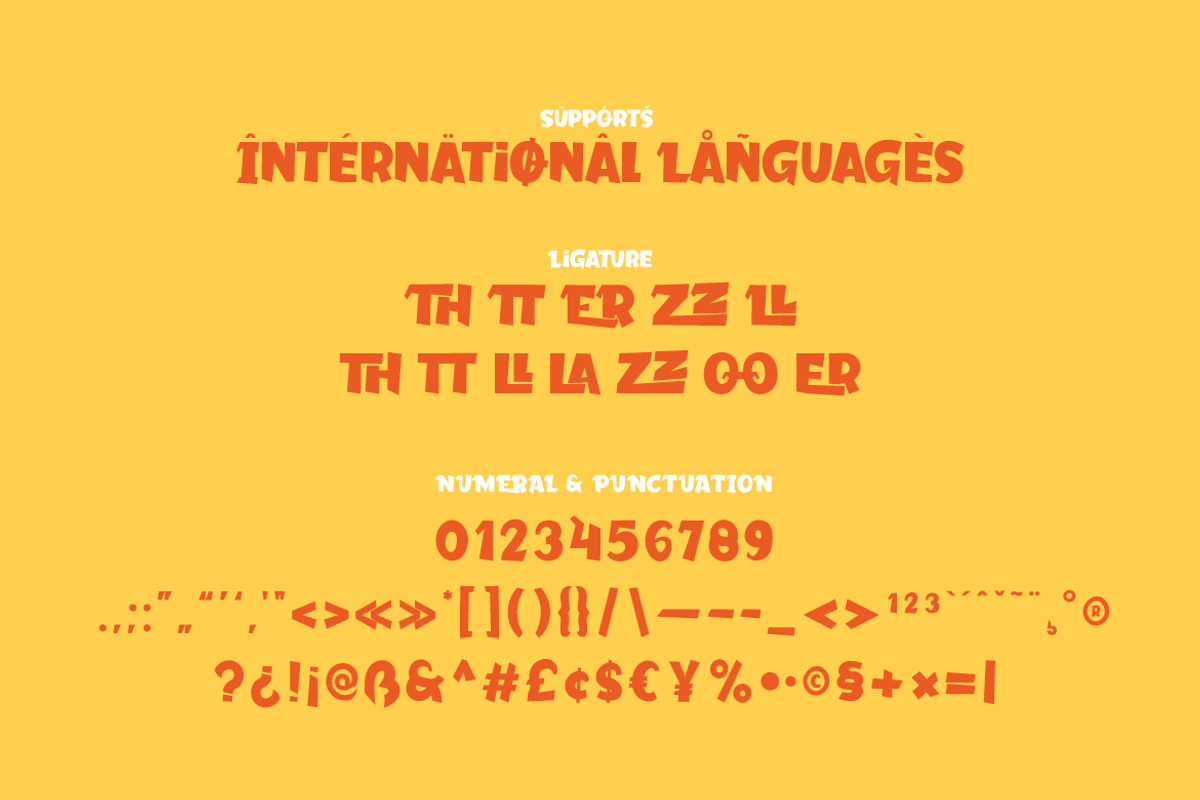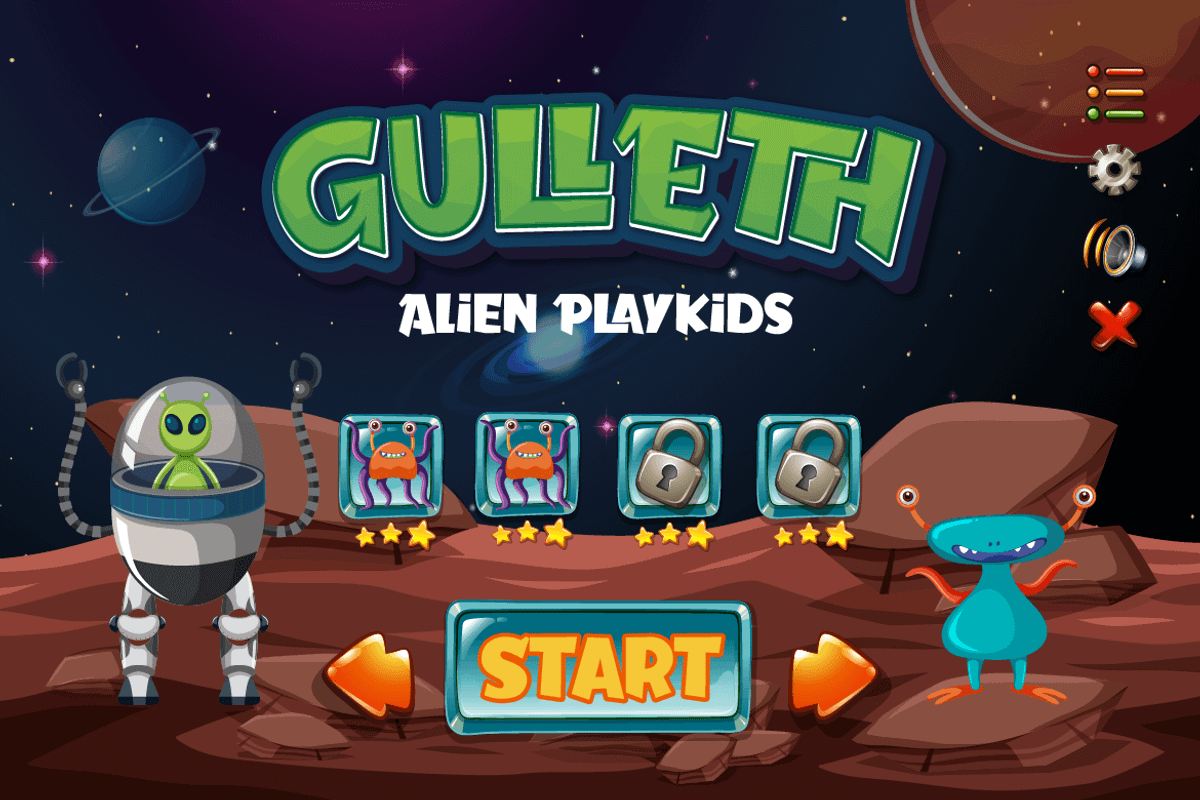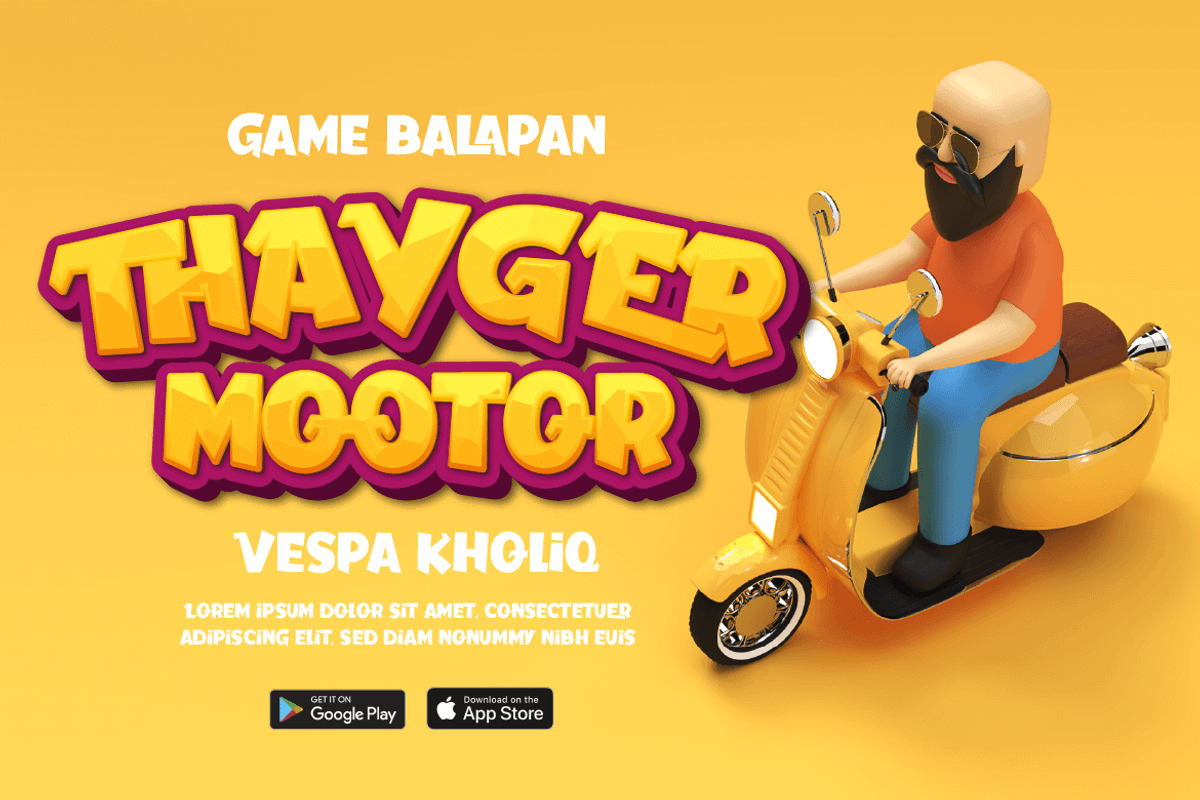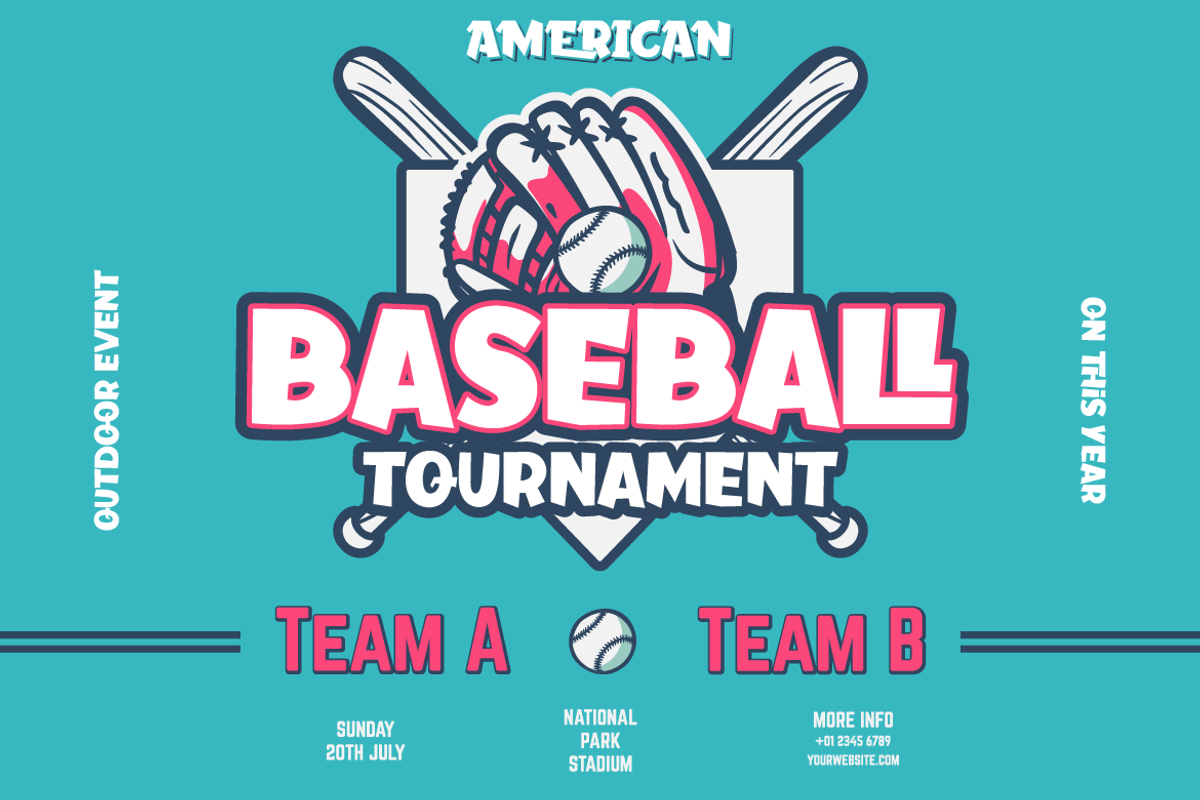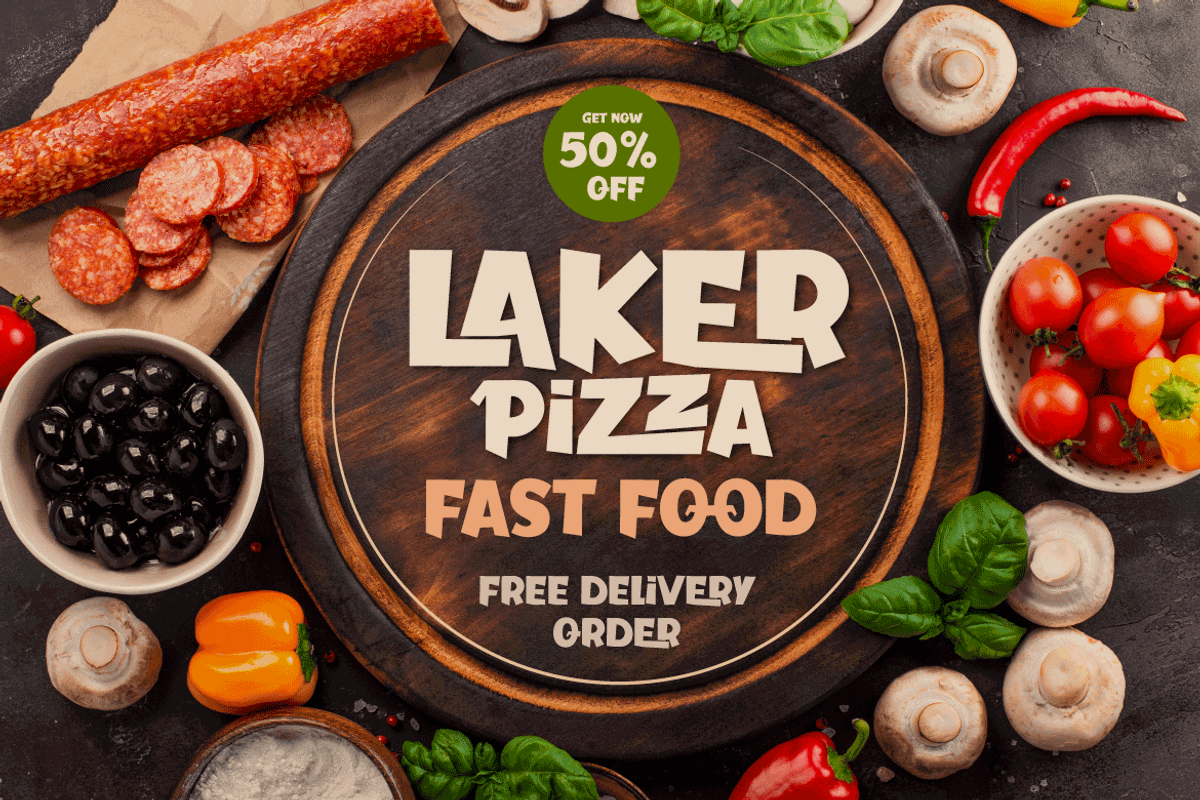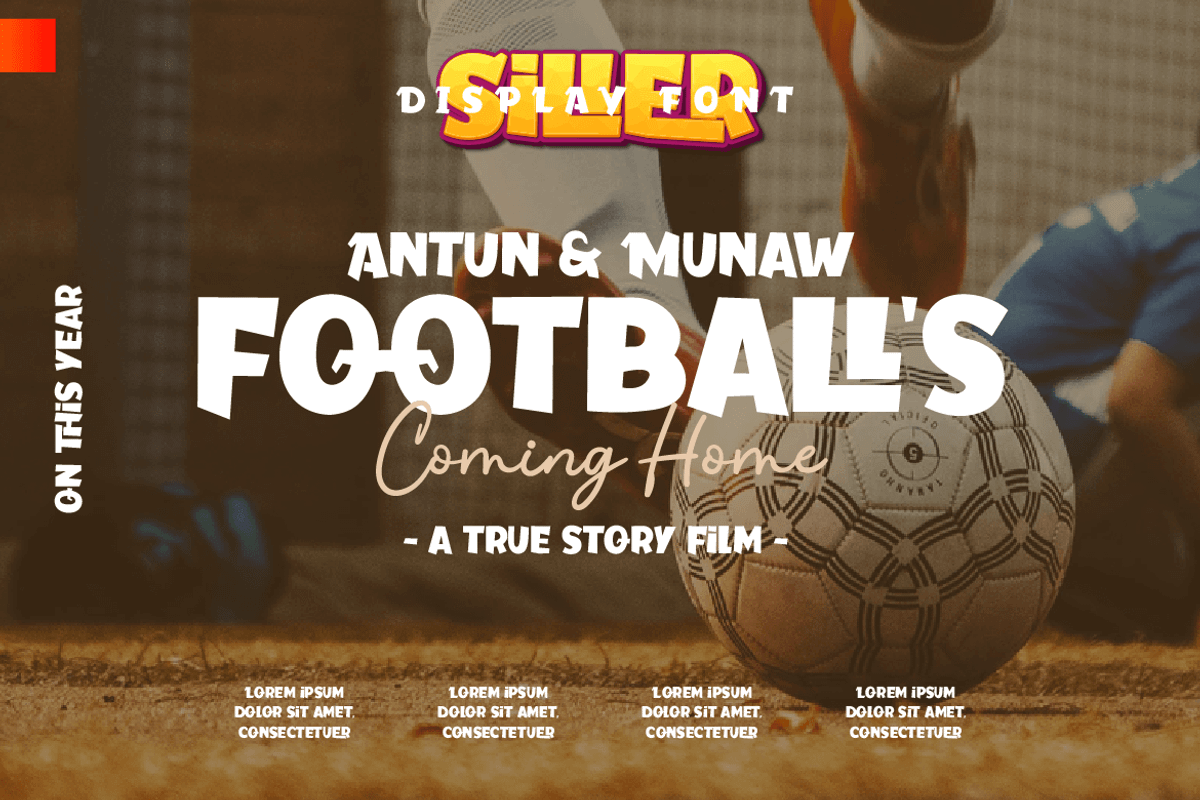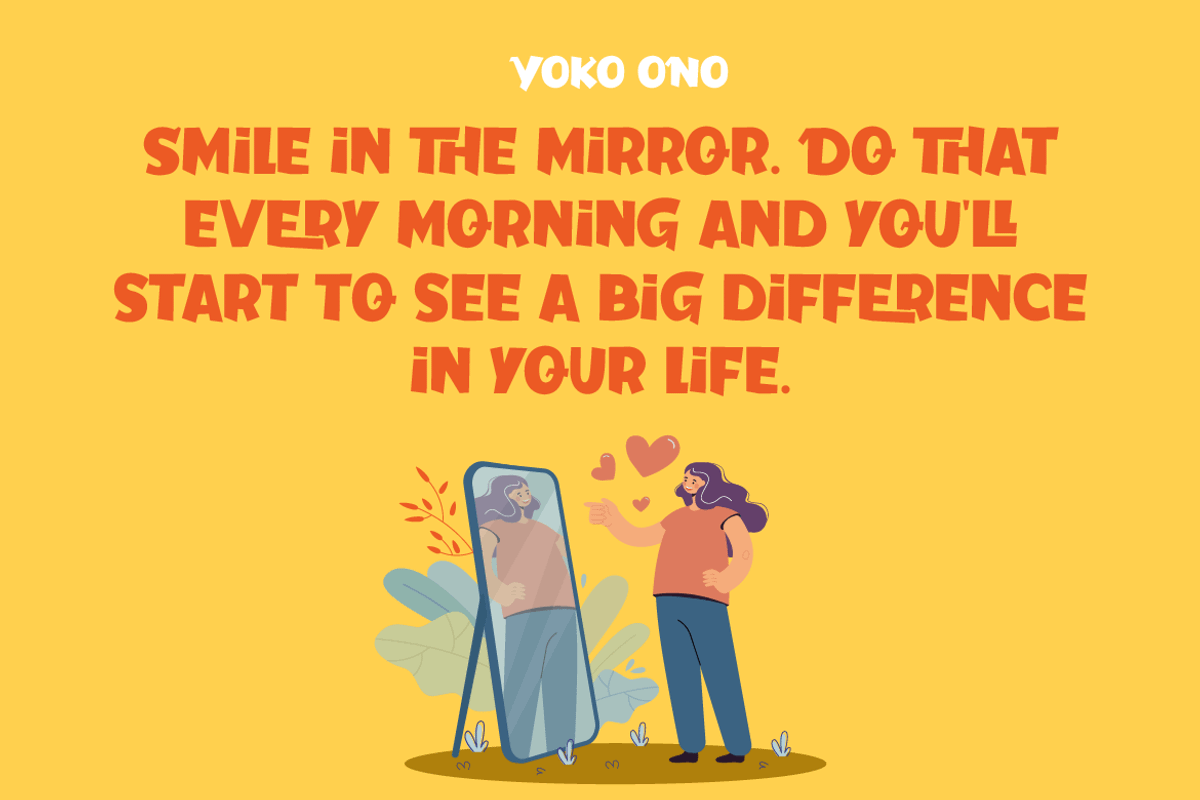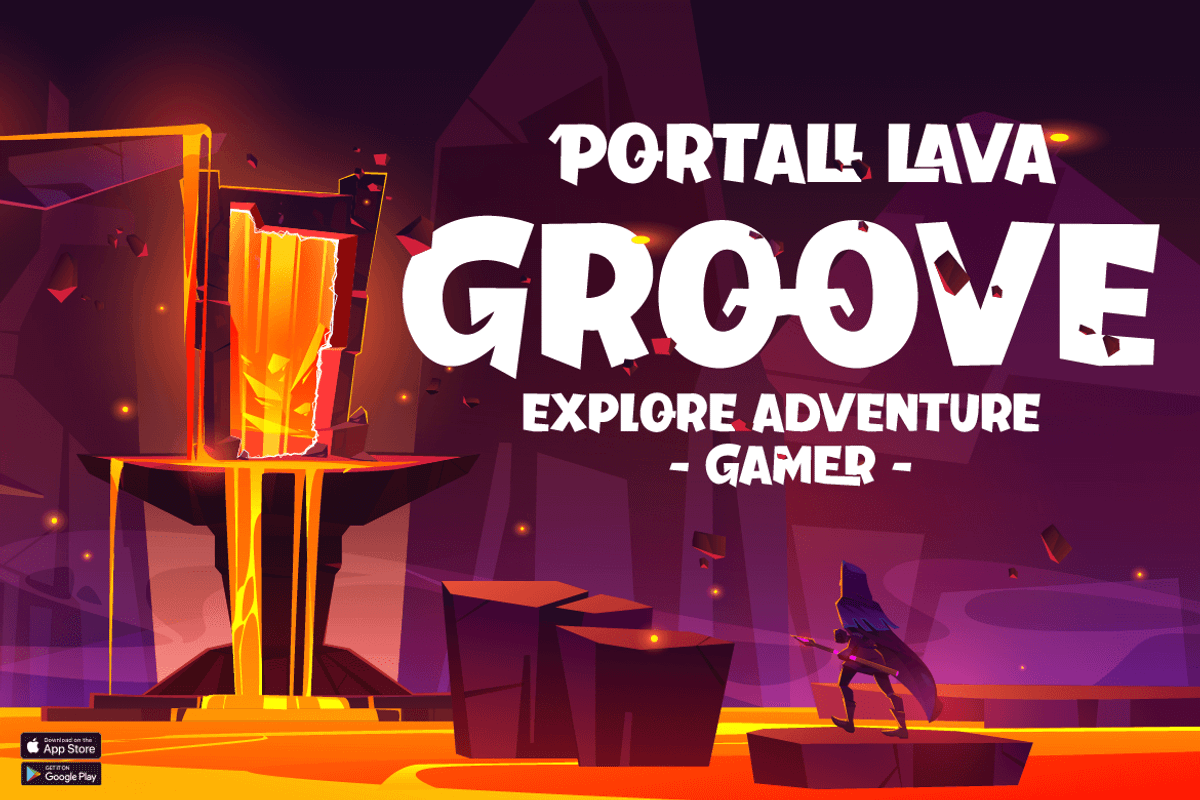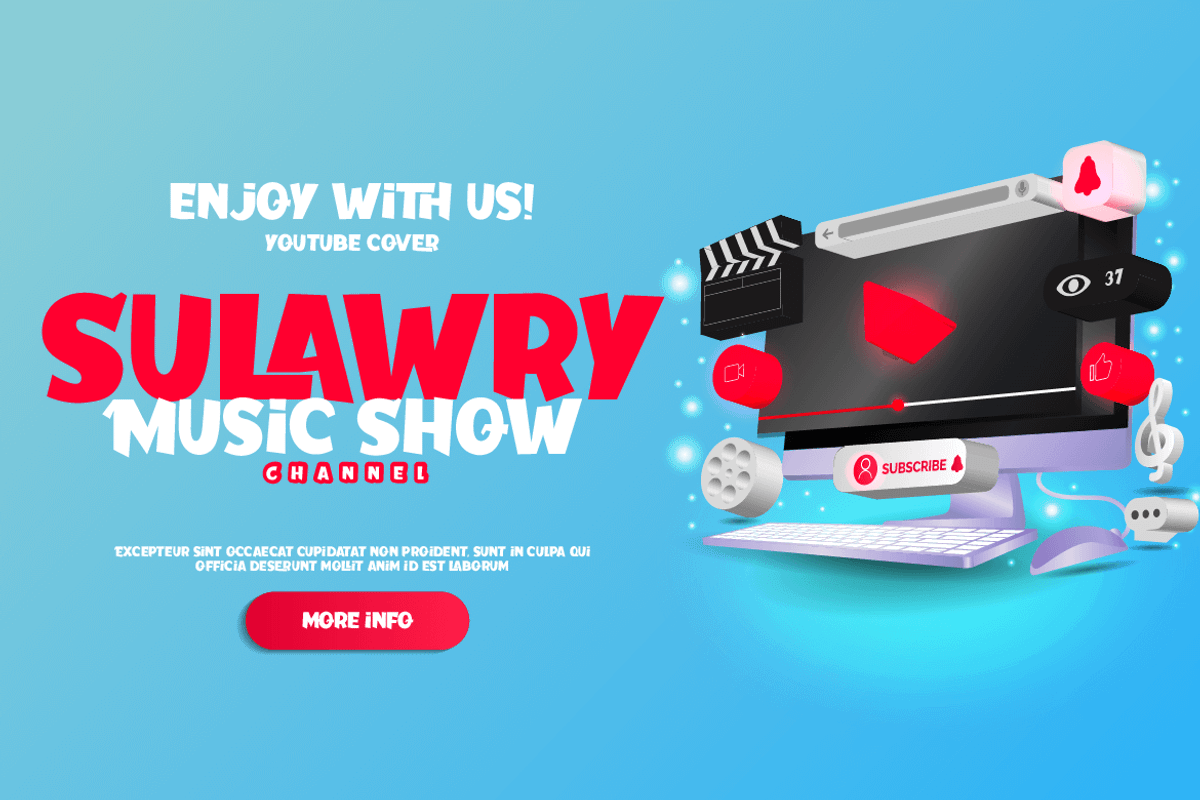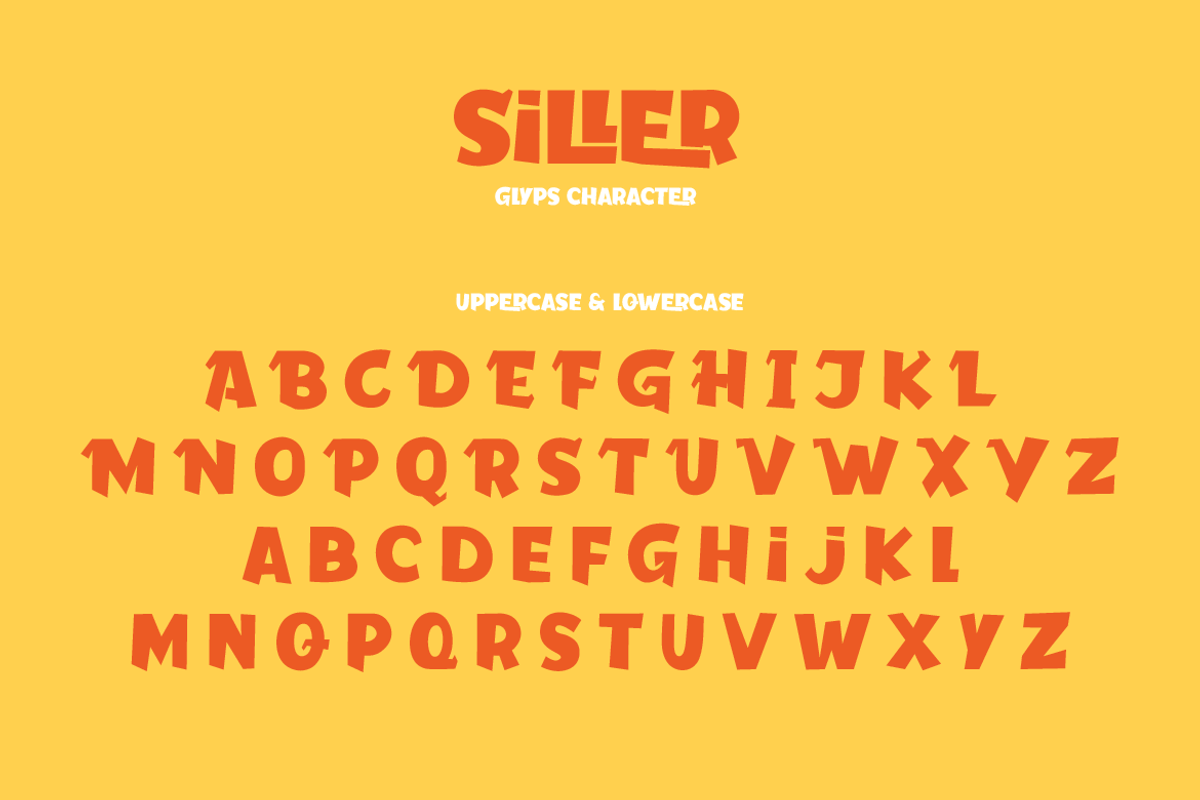
Siller
Siller is a playful display typeface that is appropriate for a range of game applications.
It is created in a relaxed, fun, and beautiful manner. This typeface is appropriate for both official and informal projects, and it is appropriate for all designs for children and adults. This typeface is appropriate for a broad range of creative applications, including game covers, titles, book covers, outdoor events, posters, banners, promotional materials, movie titles, YouTube covers and thumbnails, children’s games, cartoon projects, title, and text. .